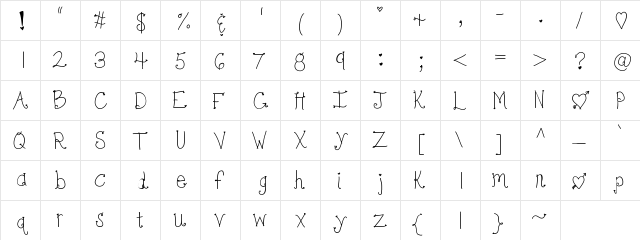
KBBonjourSweetheart Medium
Design Context for KBBonjourSweetheart Typeface
KBBonjourSweetheart is a composed and adaptable typeface that performs quietly and consistently across a wide range of design contexts.